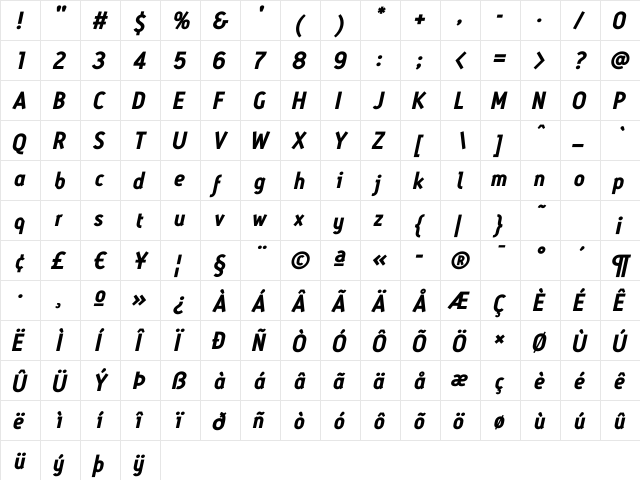
AntitledBold Italic Regular Font Preview
Design Context for AntitledBold Italic Typeface
AntitledBold Italic takes a measured approach to typography — its balanced proportions and neutral character make it a reliable workhorse for both digital and print work. Its italic angle brings a sense of urgency and motion to the letterforms. The heavy weight commands attention and anchors typographic hierarchies.
Pro Tip: Try AntitledBold Italic for annotation and caption copy alongside an upright companion — the contrast in angle creates a dynamic but ordered typographic system.